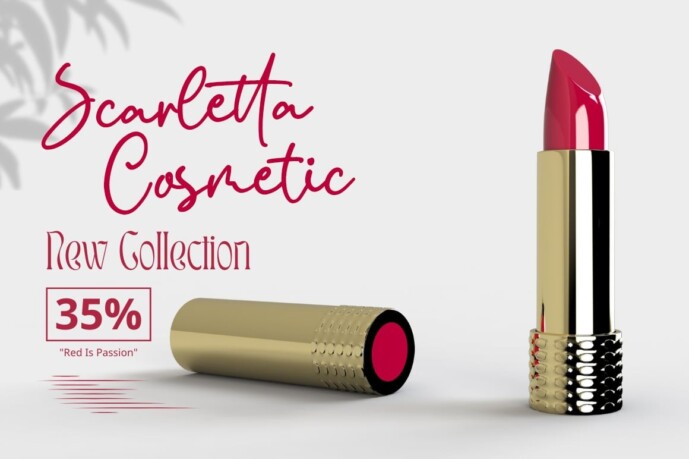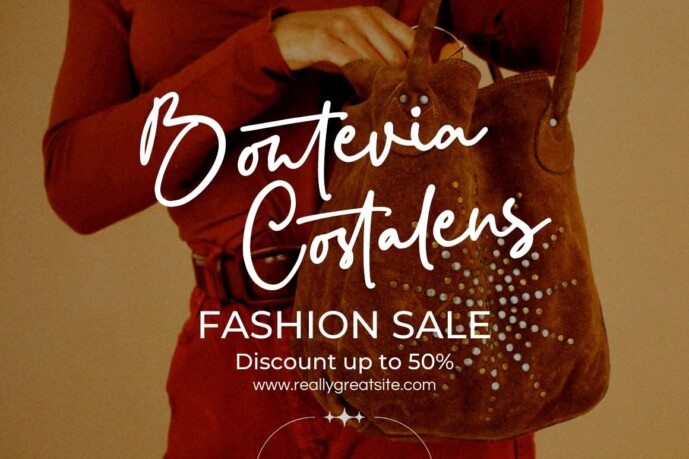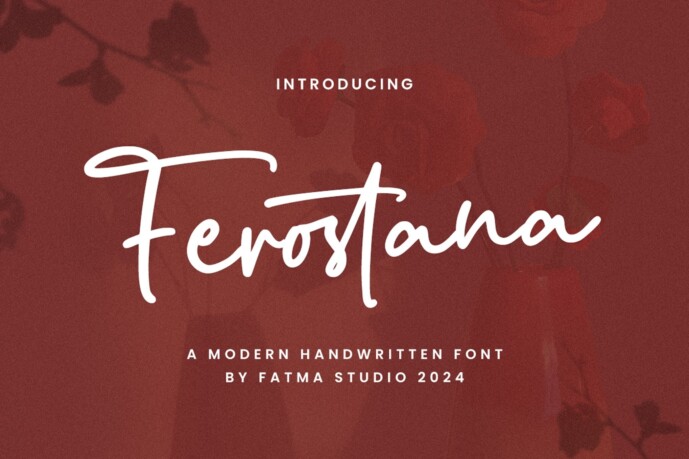
Ferostana Font
Ferostana Font is a contemporary, elegant typeface that combines the fluidity of script with the precision of modern design. It features graceful, sweeping curves and connected letterforms that evoke a sense of sophistication and style. Unlike traditional scripts, Ferostana’s strokes are streamlined and refined, offering a clean, legible appearance even in smaller sizes.